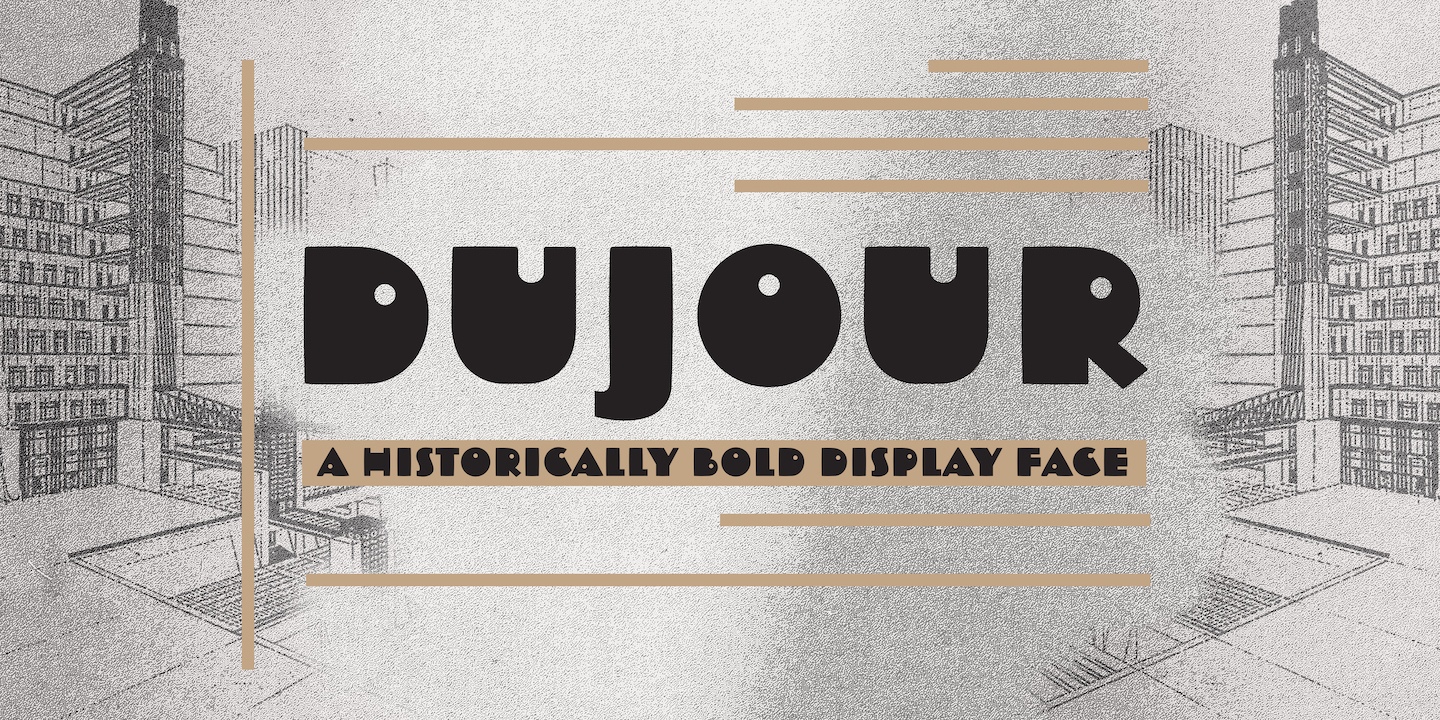
Dujour Font
Dujour Font is perfect for fashion magazine layouts, contemporary art gallery exhibitions, trendy restaurant menus, modern lifestyle branding, cutting-edge advertising campaigns, chic boutique signage, avant-garde design projects, and sophisticated editorial content where current trends and contemporary style are paramount.
What makes Dujour Font so exciting is its remarkable ability to capture the pulse of contemporary culture through sleek, fashion-forward letterforms that embody the spirit of today's design zeitgeist while maintaining exceptional versatility. The modern character design reflects the dynamic energy and sophisticated taste that defines current cultural movements.
The Dujour Font family includes thin, light, regular, medium, bold, and black weights, with stylish italic variants that provide comprehensive typographic solutions for creating trend-setting brand systems and contemporary design hierarchies that speak to modern audiences.
This sophisticated typeface represents the evolution of contemporary typography, combining current design trends with timeless functionality. The Dujour Font Free Download offers modern brands access to typography that communicates cultural awareness and contemporary relevance.
The font's refined character architecture and balanced proportions create immediate associations with current fashion trends and contemporary lifestyle choices. Each letterform has been designed to reflect the sophistication and cultural intelligence required in today's competitive creative markets.
Dujour Font excels in creating memorable brand identities that resonate with trend-conscious consumers and cultural tastemakers. The typeface's contemporary character makes it ideal for brands operating in fashion, lifestyle, entertainment, and creative industries targeting style-aware audiences.
From fashion publications to contemporary galleries, this font delivers the cultural currency needed to communicate relevance and sophisticated taste in fast-moving creative markets. The versatile design maintains its contemporary edge across both traditional print media and cutting-edge digital platforms.